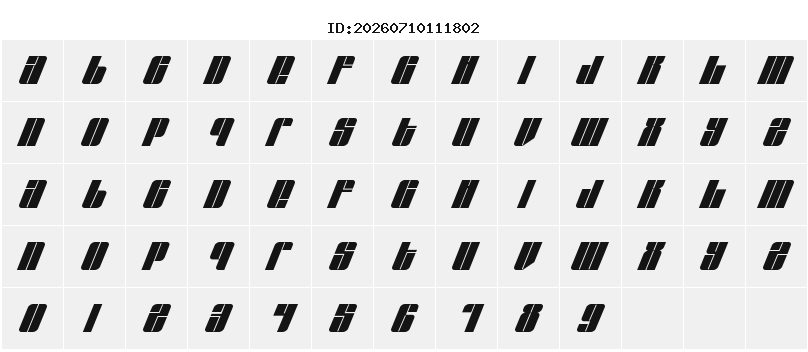
EastLift Preview
• Font Name: EastLift
• Full Font Name: EastLift
• Version: Version 1.00 May 26, 2009, initial release
About EastLift.ttf
EastLift.ttf is a modern, elegant sans-serif font designed for ultimate readability and visual harmony. Perfect for branding, headlines, web design, and print materials.